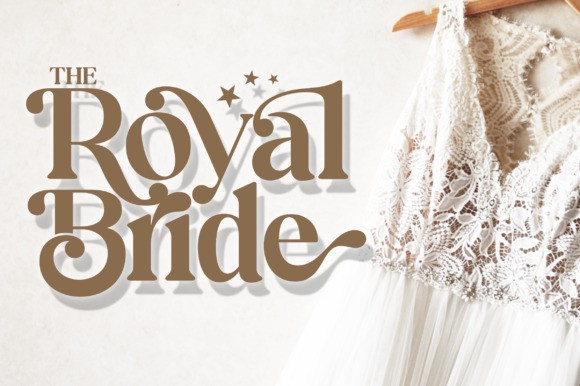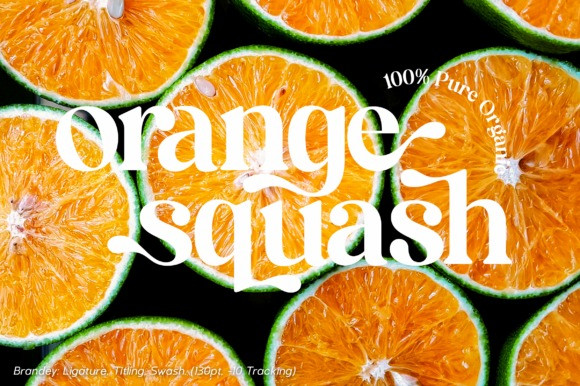
Brandey Font
Brandey is a cool and vintage styled serif font. It is PUA encoded which means you can access all of the amazing glyphs and ligatures with ease!